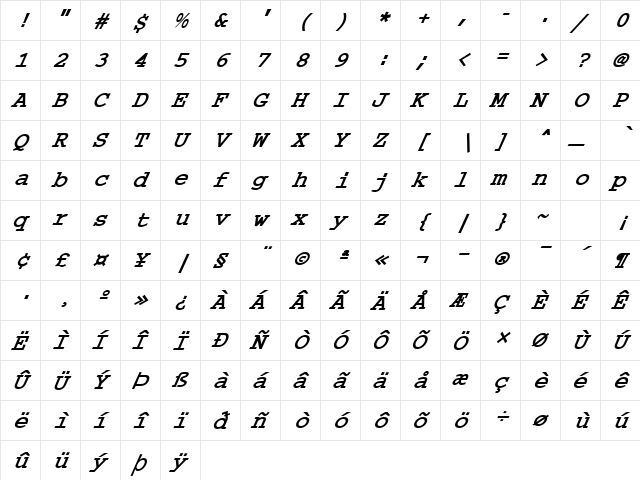
FZ DIGITAL 3 ITALIC Bold Font Preview
Design Context for FZ DIGITAL 3 ITALIC Typeface
FZ DIGITAL 3 ITALIC channels digital-age aesthetics through its sharp, structured letterforms — ideal for brands that want to signal innovation. The slanted form adds forward momentum and visual energy. The heavy weight commands attention and anchors typographic hierarchies.